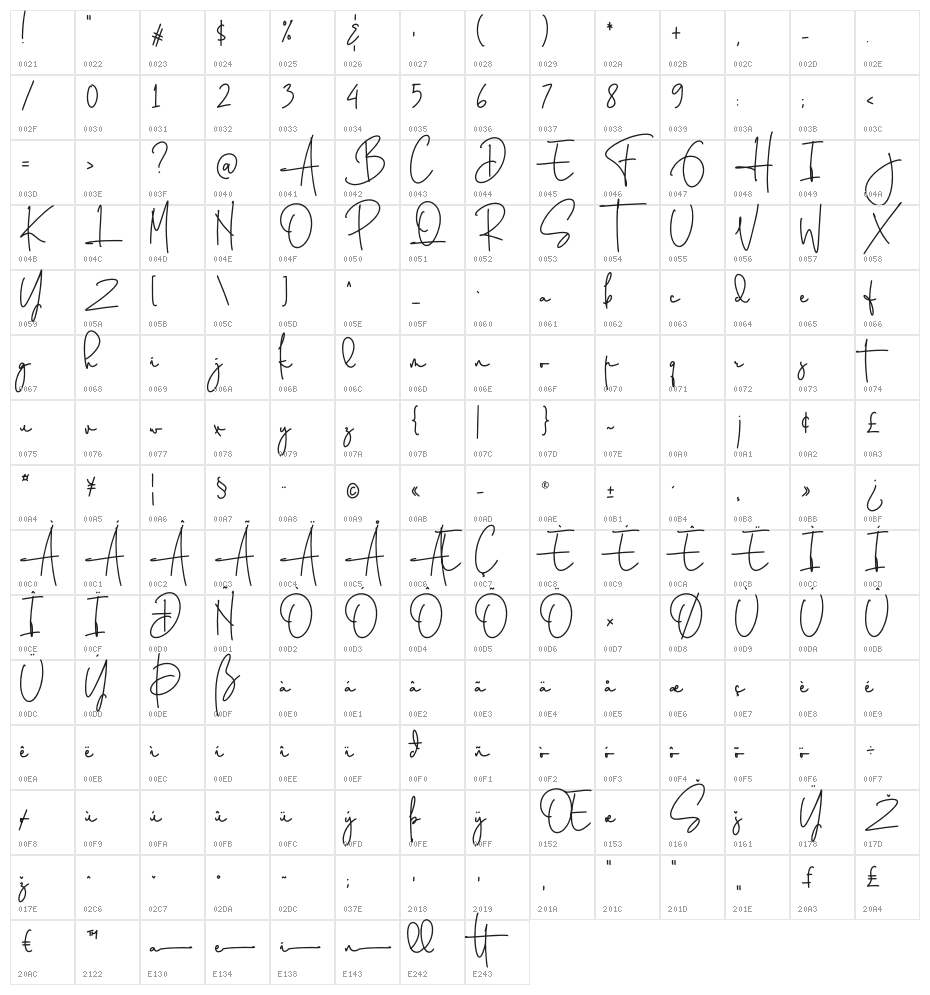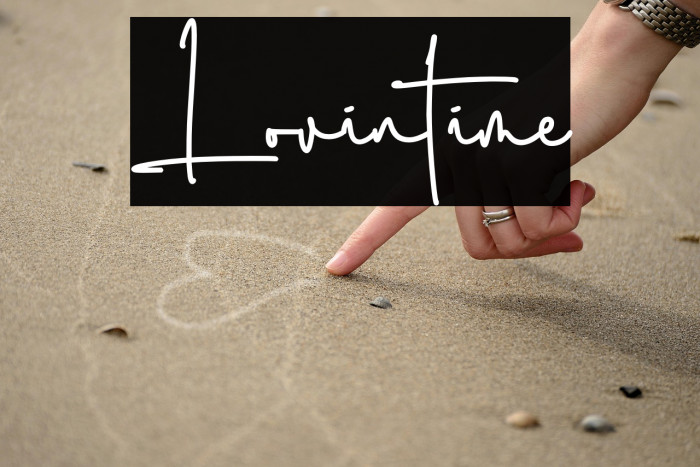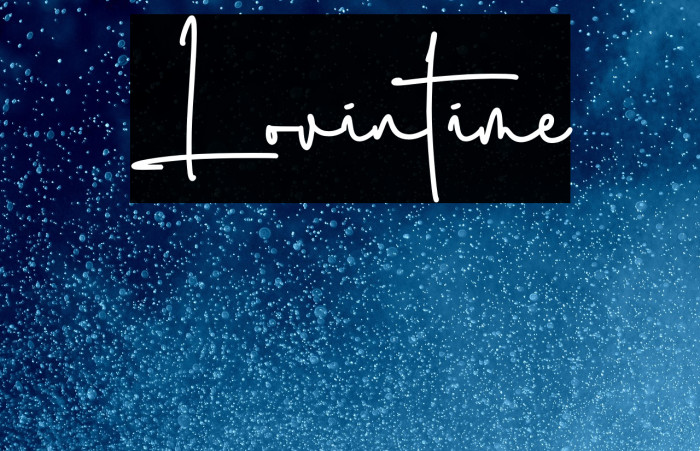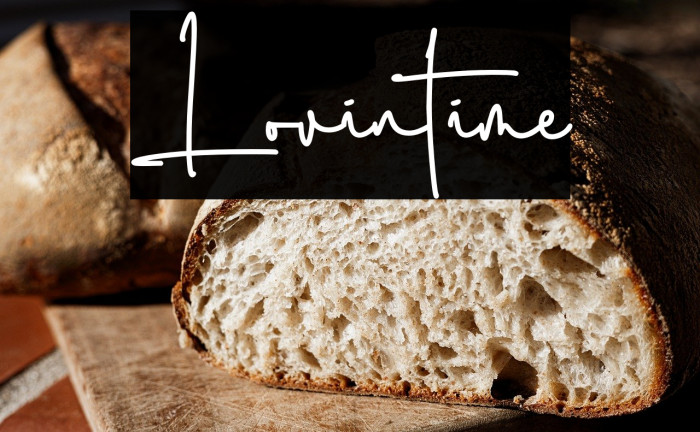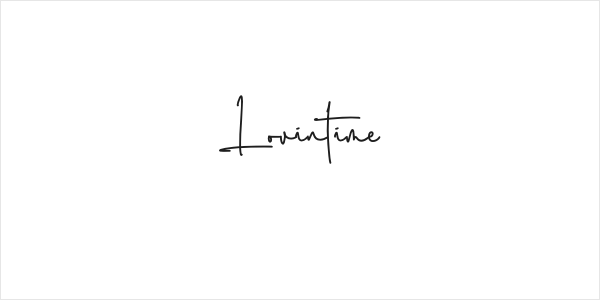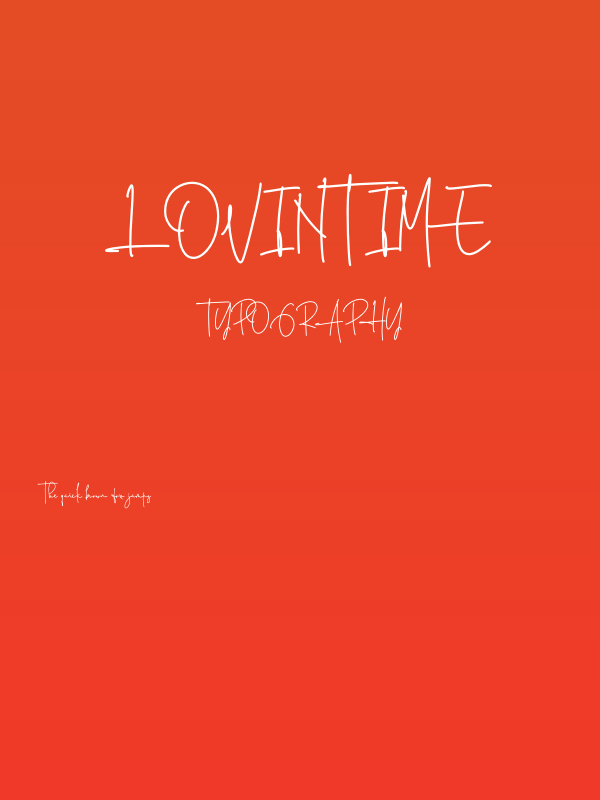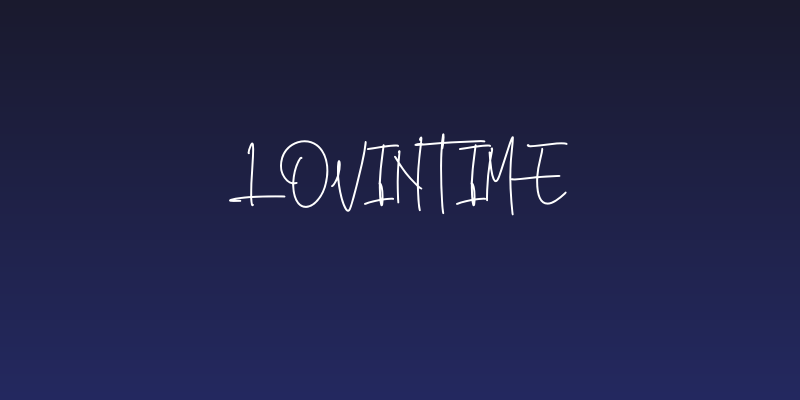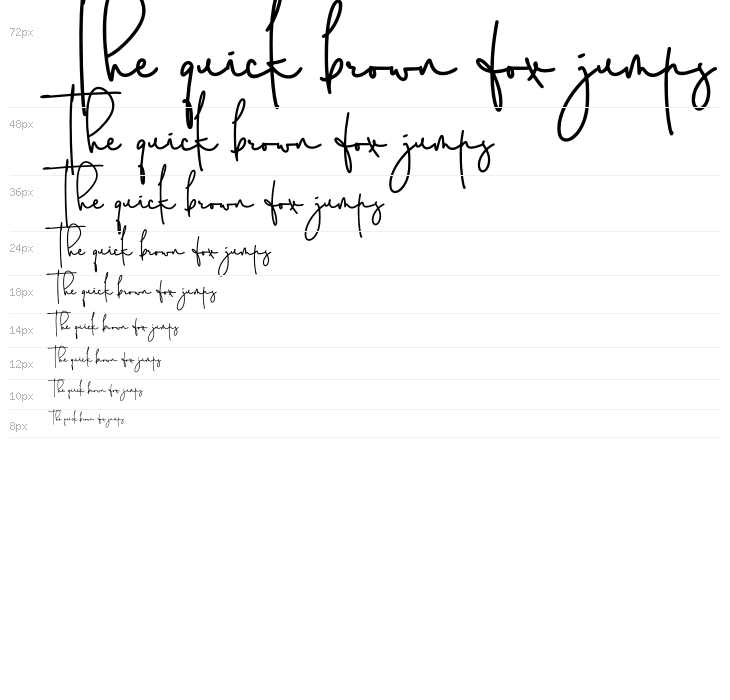
Lovintime Font
Lovintime Description
A playful, handwritten script font with a casual and personal touch. The letters are connected and have a flowing, cursive style.
| Use Case | Logos, Invitations, Personal notes |
| Proposed Projects | Greeting cards, personal invitations, casual branding. |